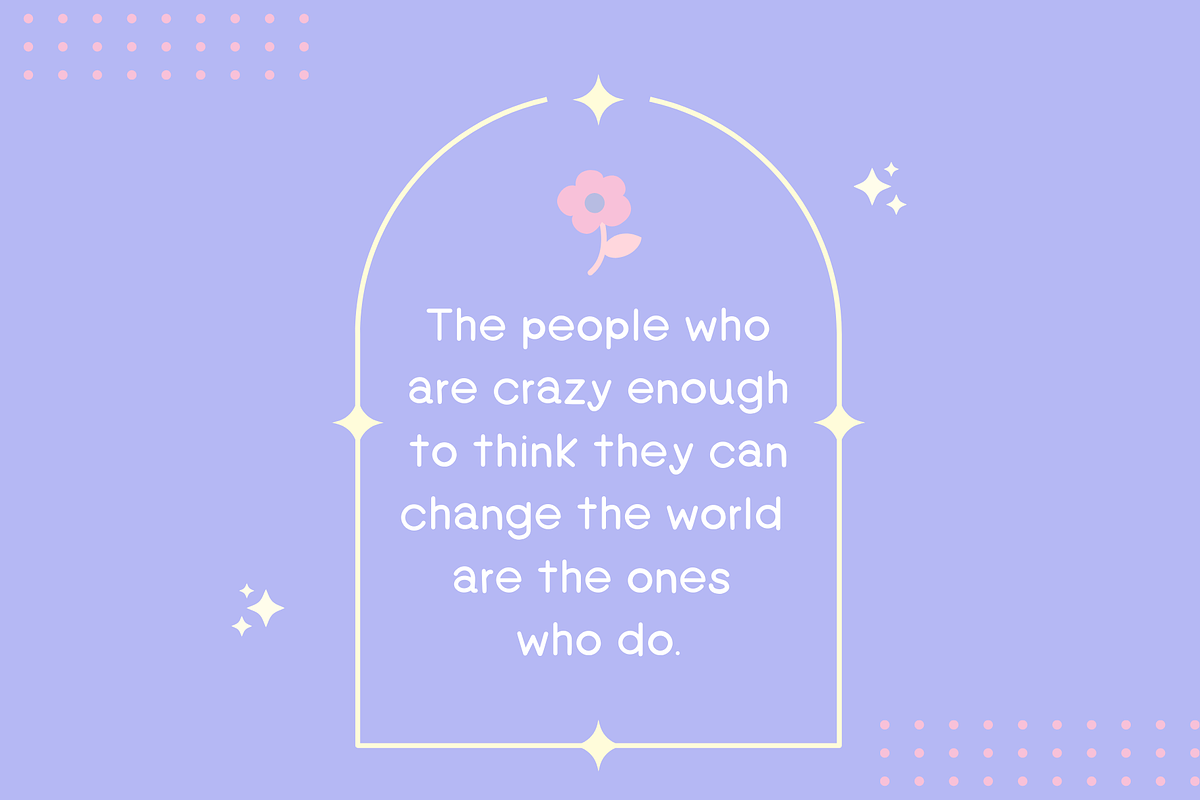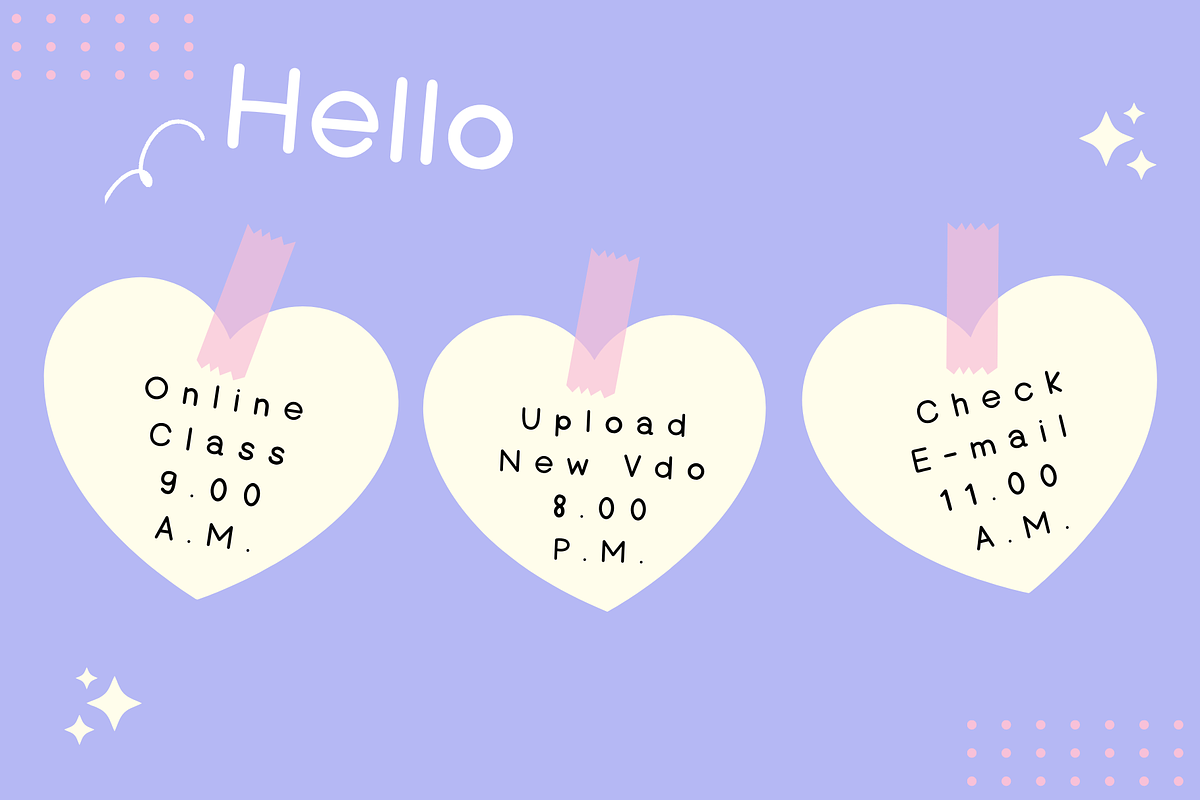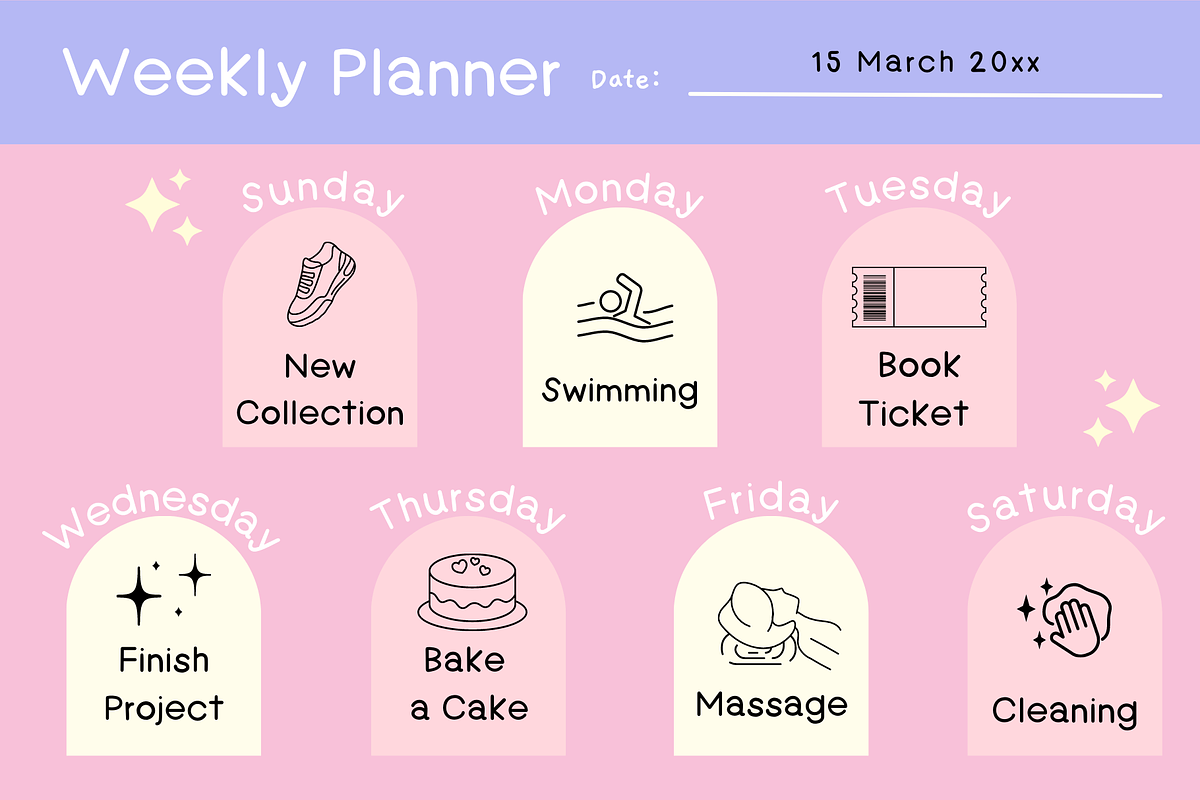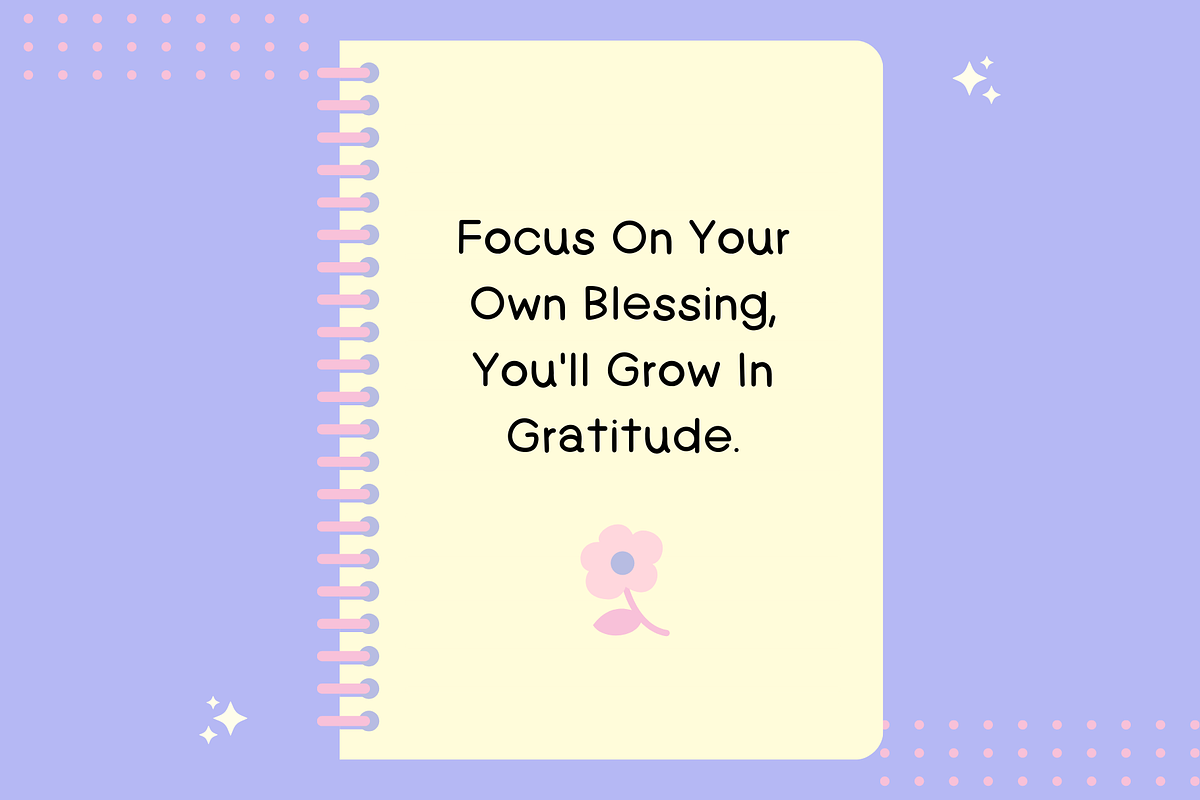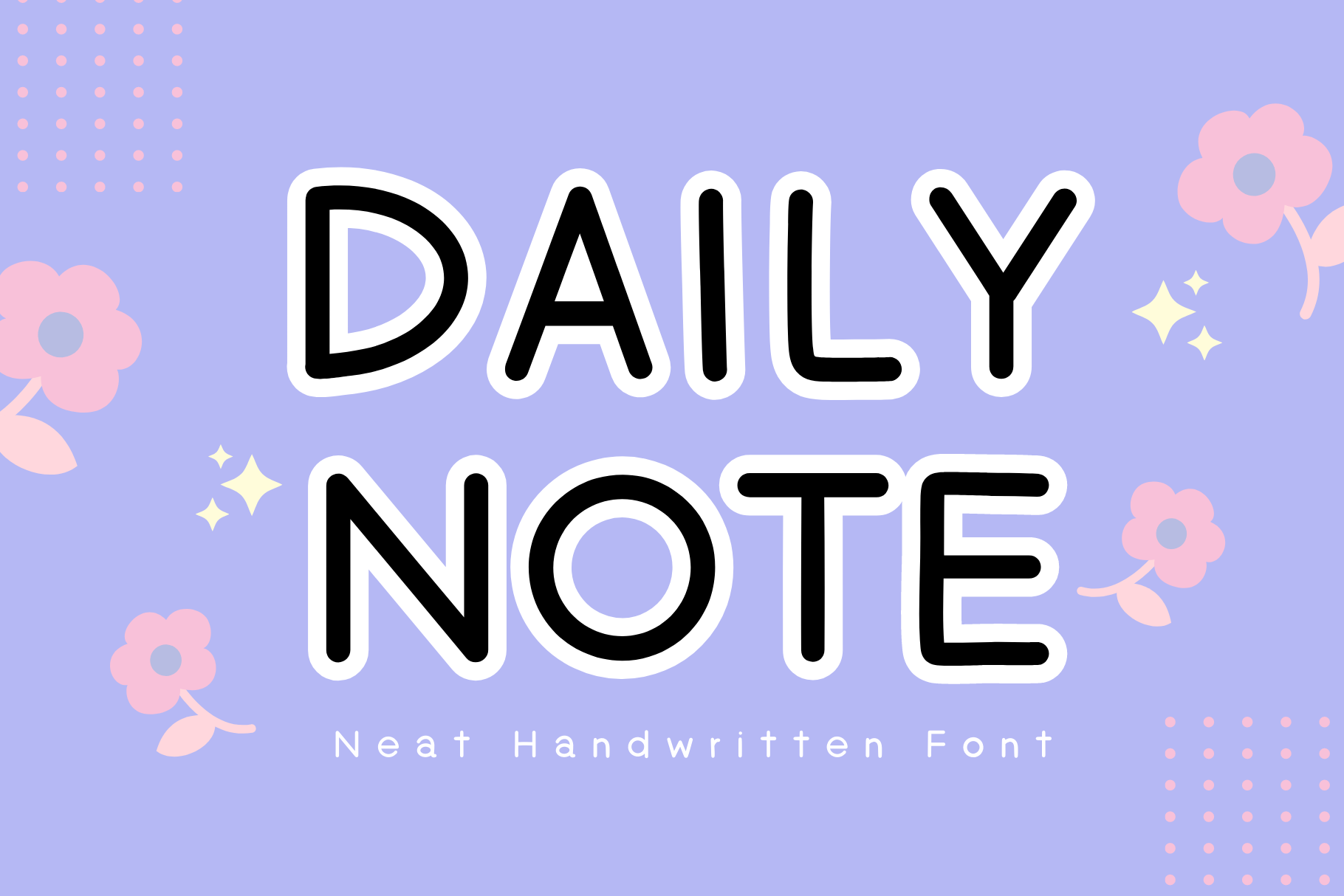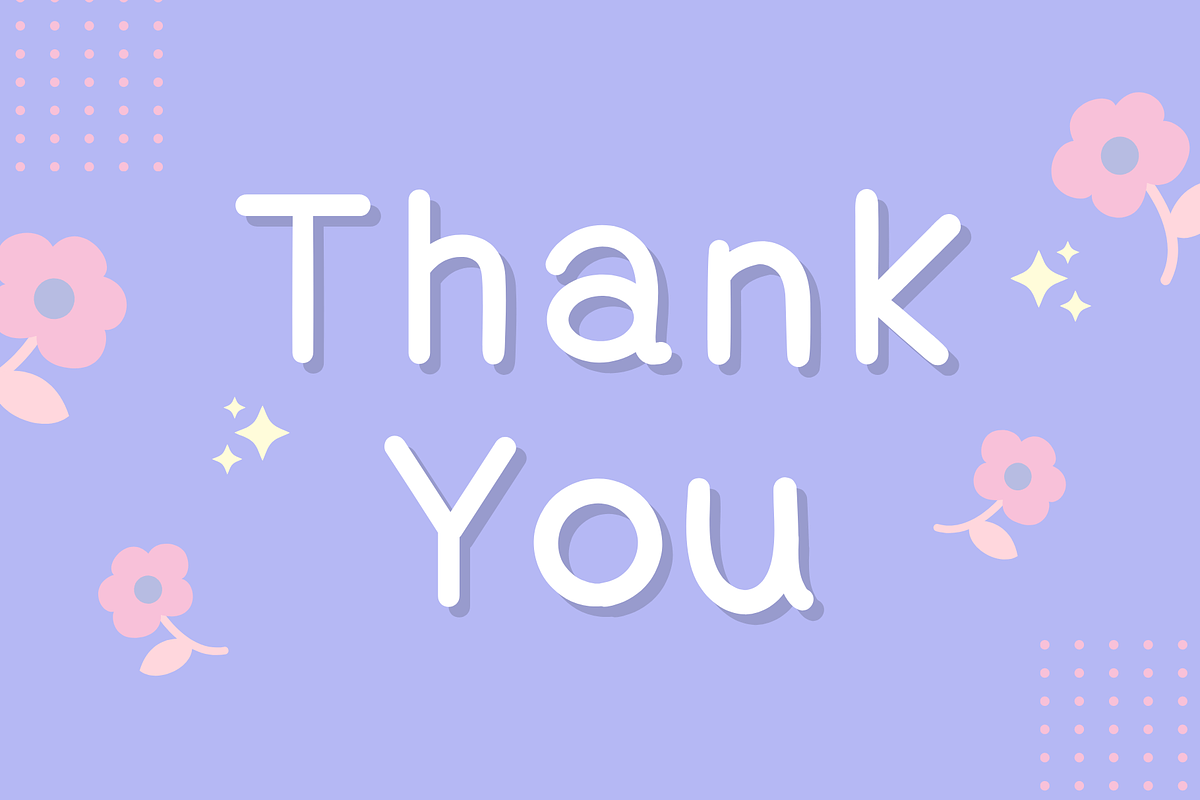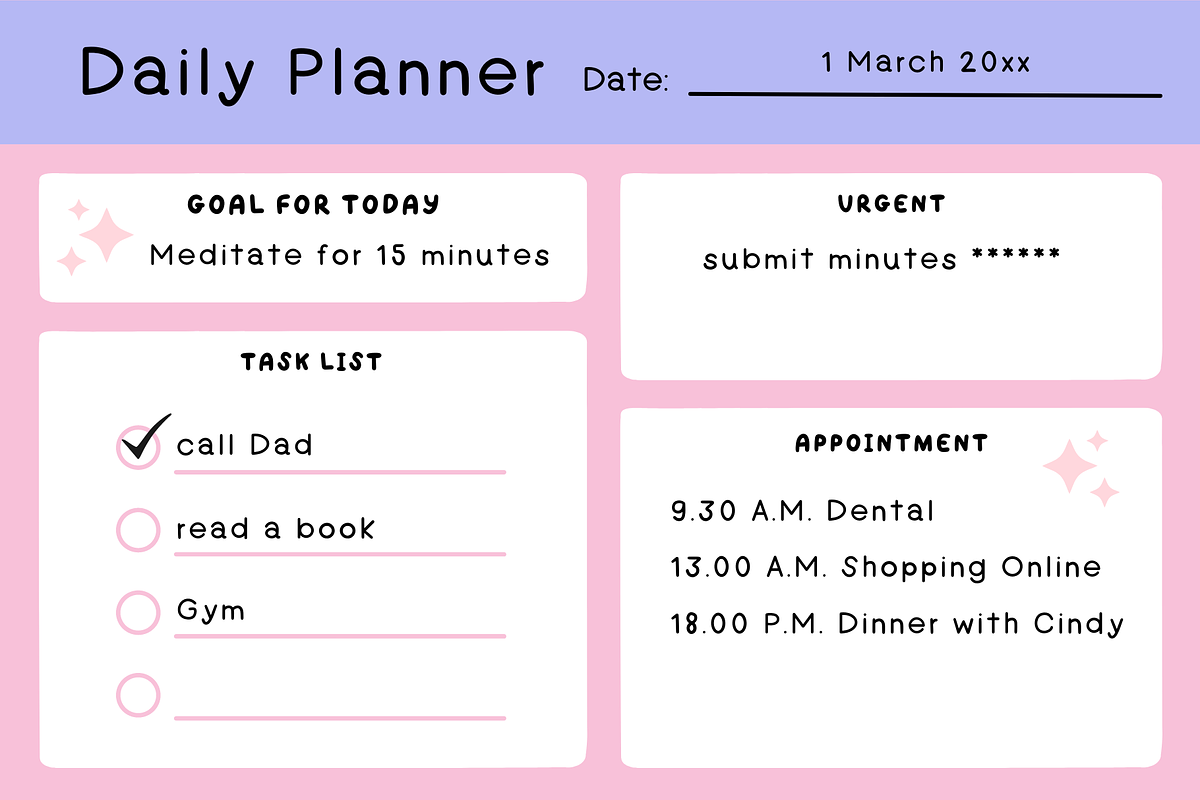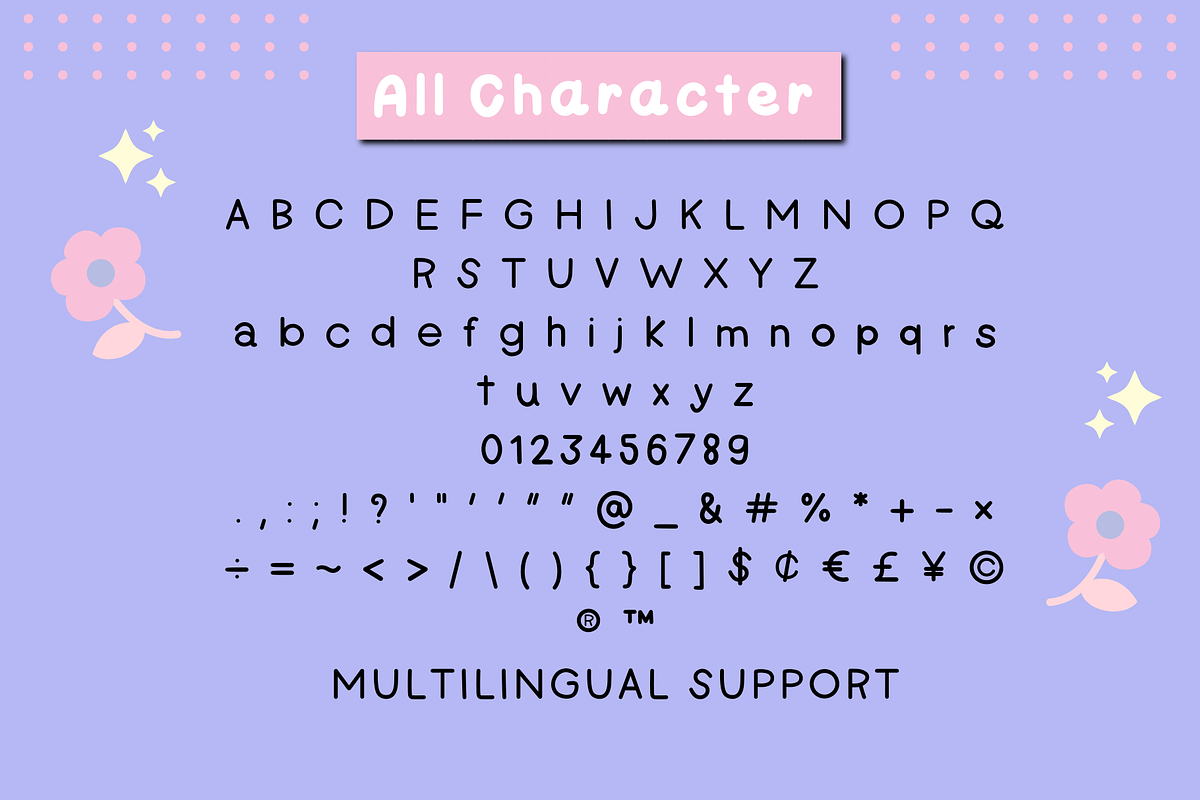
Daily Note - Neat Handwriting Font
Daily Note Neat Handwritten Font is a simple typeface that captures the essence of neatness, making it easy to read and pleasant to look at, while still maintaining a sense of approachability and friendliness.